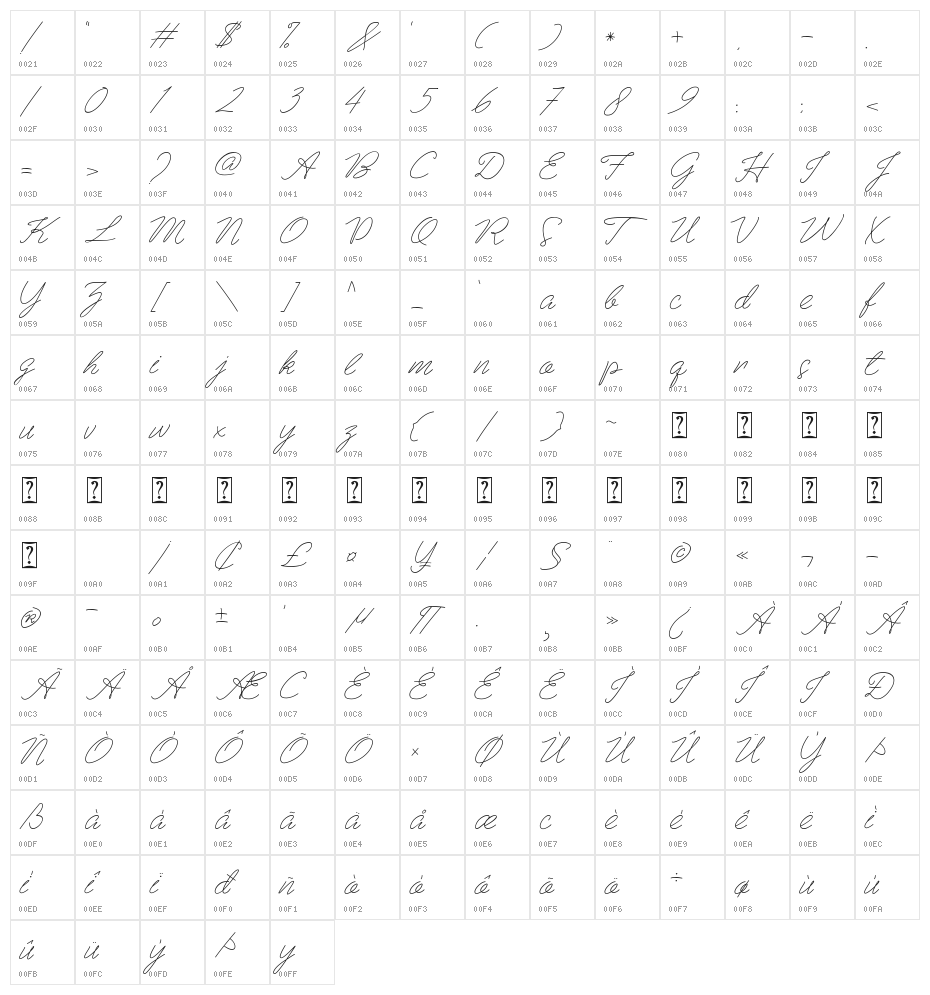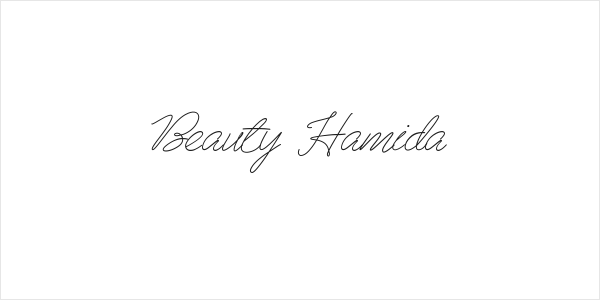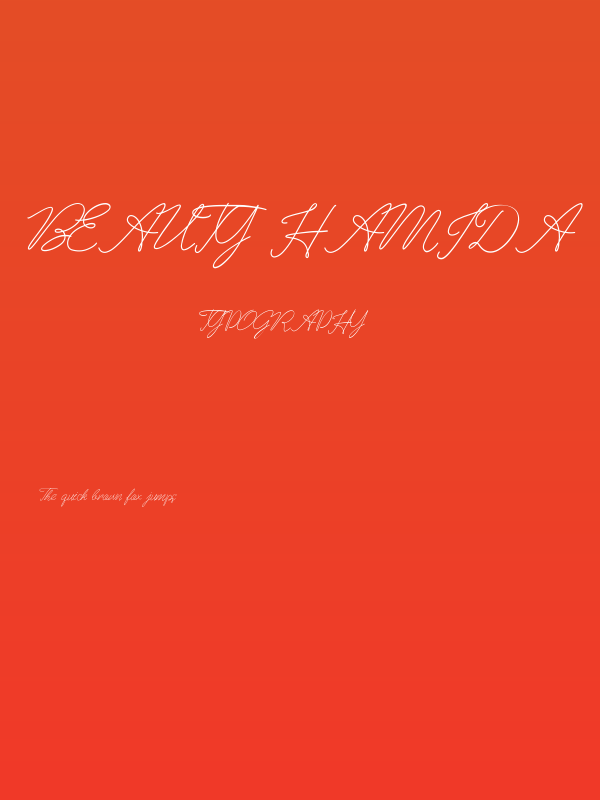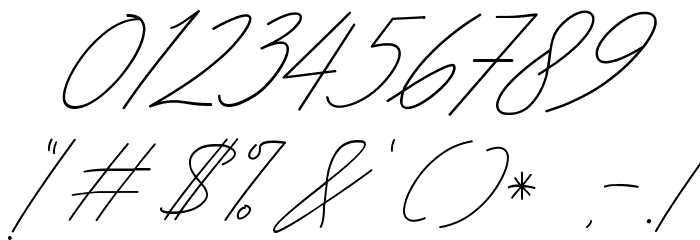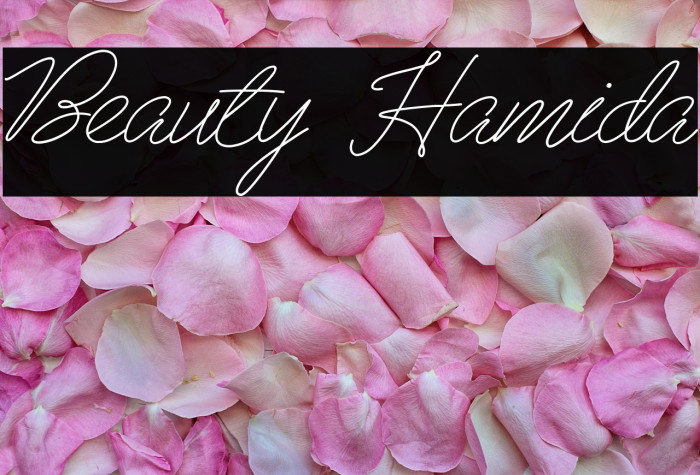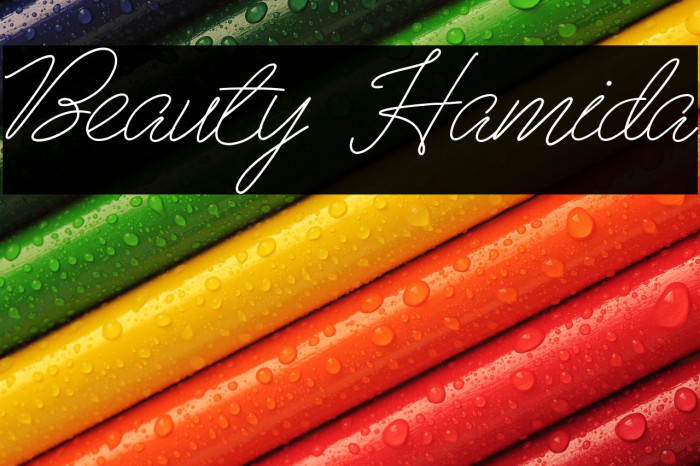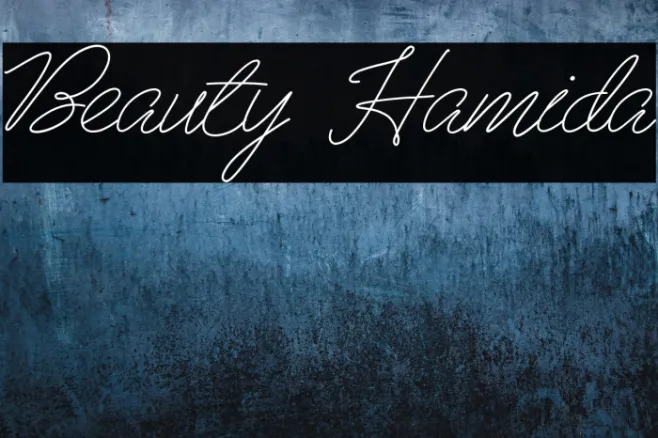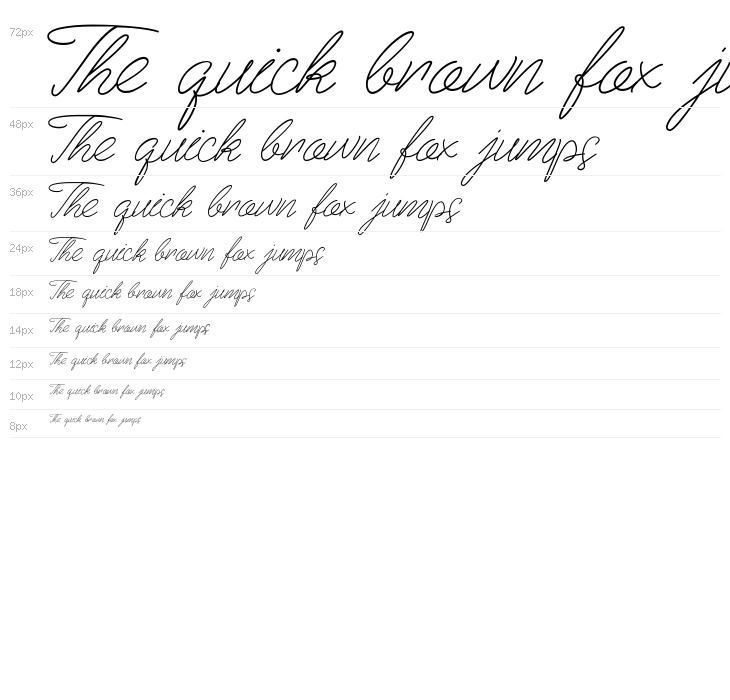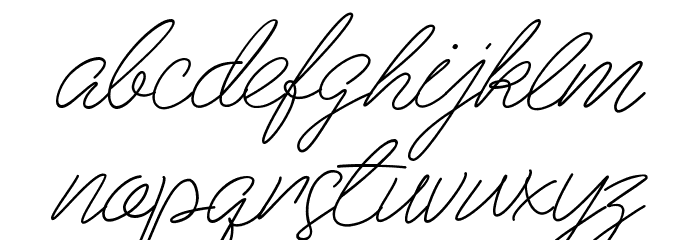
Beauty Hamida Font
Beauty Hamida Description
This elegant script font features a flowing, cursive style with smooth, continuous strokes that mimic the fluidity of handwriting. The uppercase letters are gracefully elongated, while the lowercase characters maintain a consistent rhythm and balance. The numerals are stylishly integrated, complementing the overall aesthetic. Special characters are thoughtfully designed to match the script's elegance, making it suitable for a variety of creative applications. The font's delicate lines and sophisticated curves evoke a sense of refinement and artistry, ideal for projects that require a personal touch.
| Proposed Projects | Ideal for wedding invitations, greeting cards, personal branding, and elegant logos. |